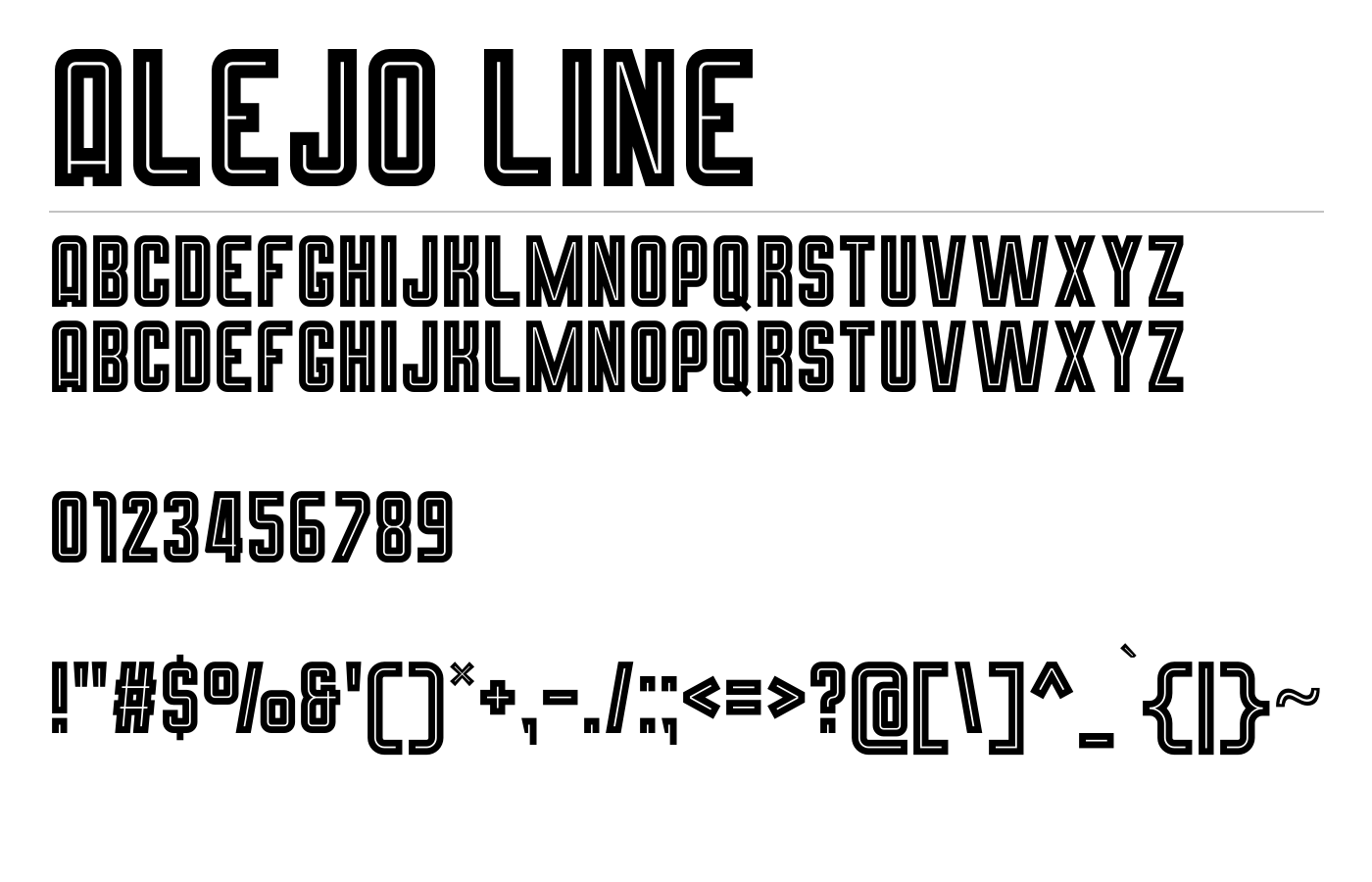
Alejo Line is a bold, condensed sans serif font featuring a distinctive double-line outline style that gives it a modern, striking appearance. Its tall x-height and geometric shapes make it highly legible while conveying a strong, contemporary vibe, perfect for eye-catching headlines, logos, and branding projects that aim for a sleek, urban aesthetic. This font works best when you want to make a stylish statement with flair and clarity.
Alejo Font